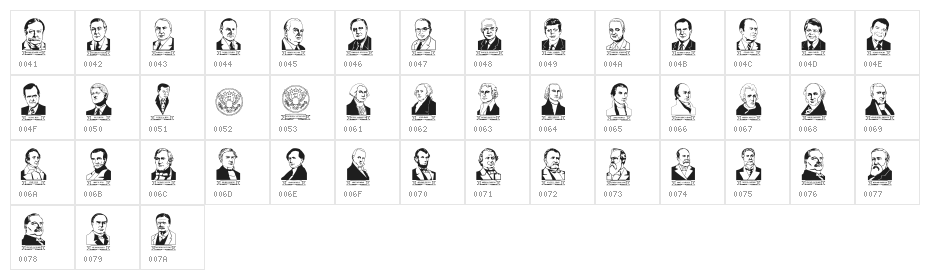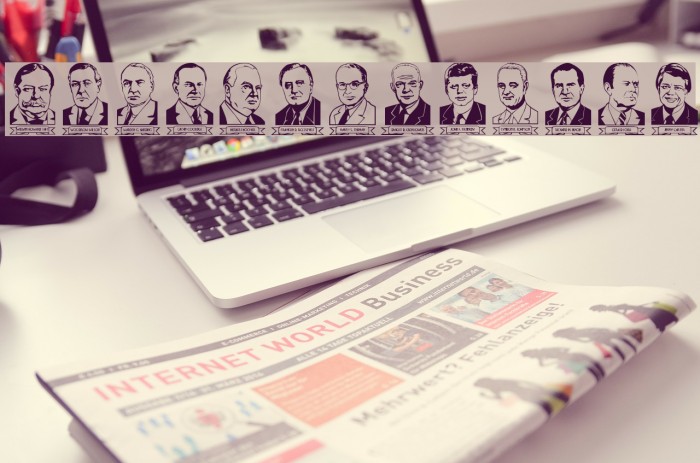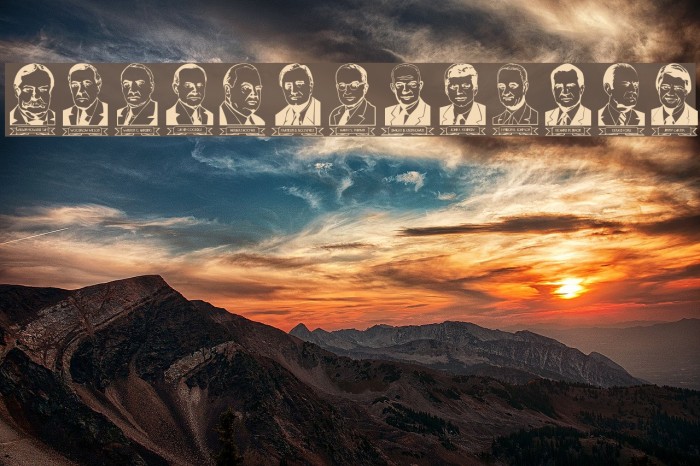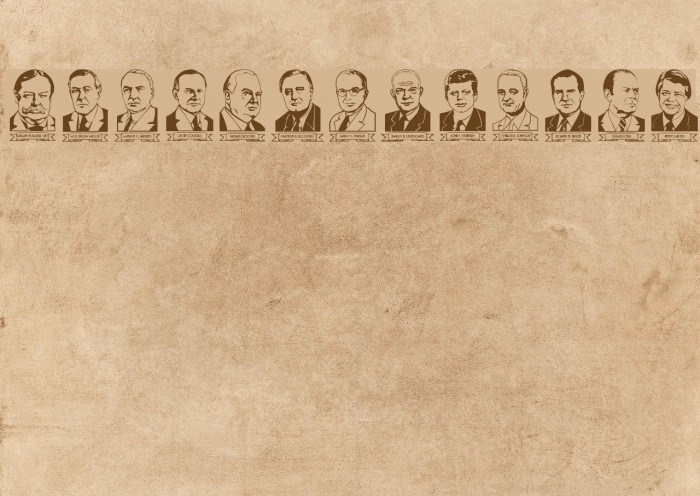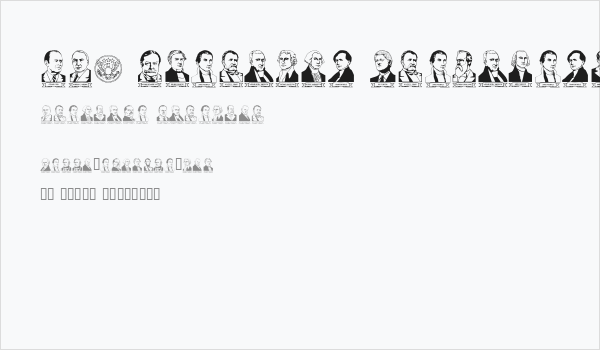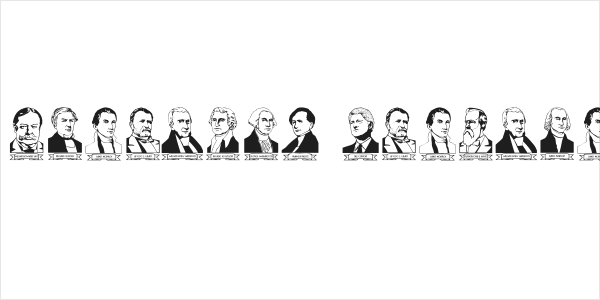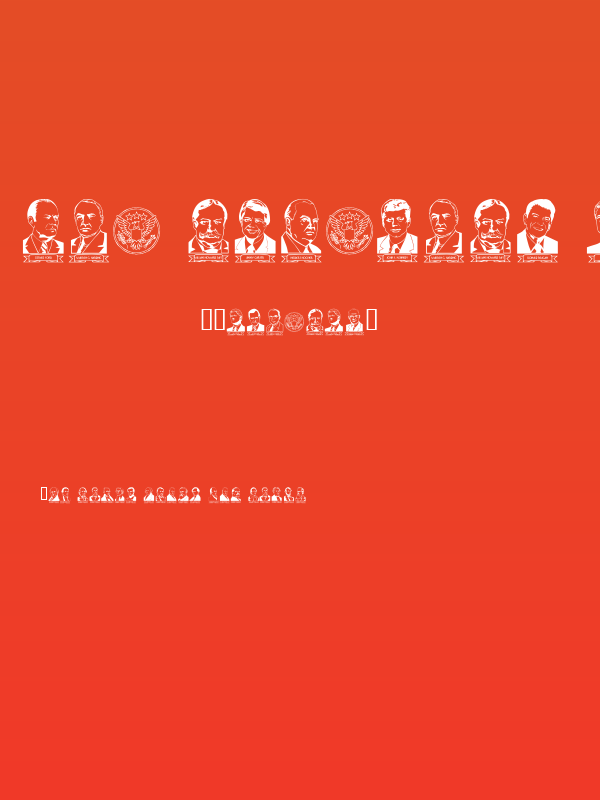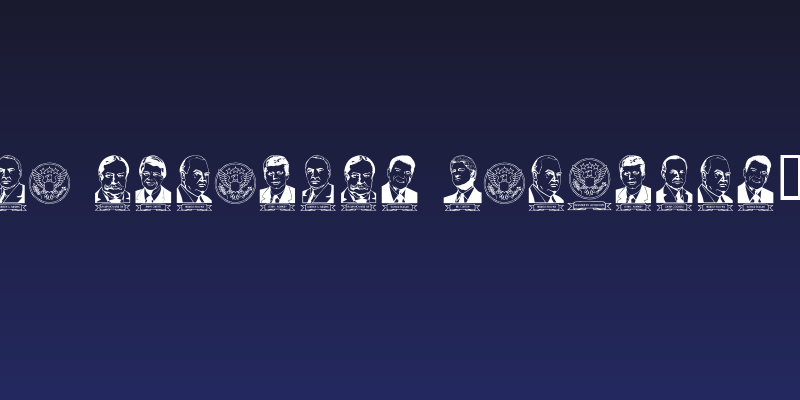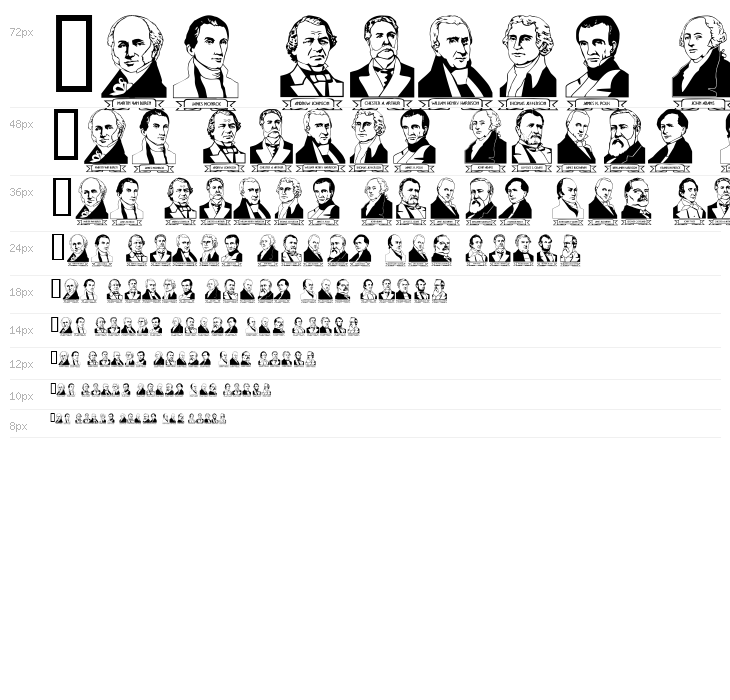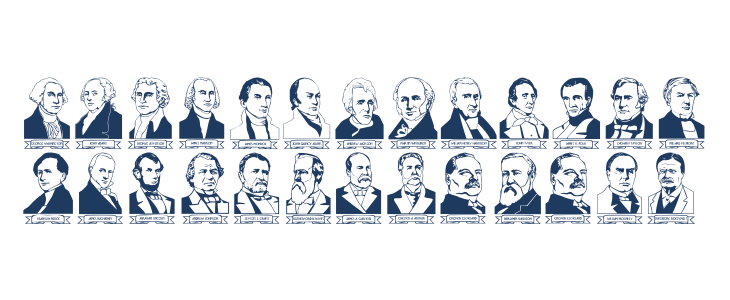
LCR American Presidents Font
LCR American Presidents Description
A decorative display set featuring detailed black-and-white illustrated portraits of American presidents, each labeled with a nameplate in a serif style. The set includes ornate seals and blank rectangular frames, but does not include a traditional alphabet or numeral set.
| Overall Style | Decorative, Historical, Illustrative |
| Use Case | Posters, Educational materials, Themed displays |
| Proposed Projects | Educational posters, history-themed designs, classroom materials, commemorative prints. |